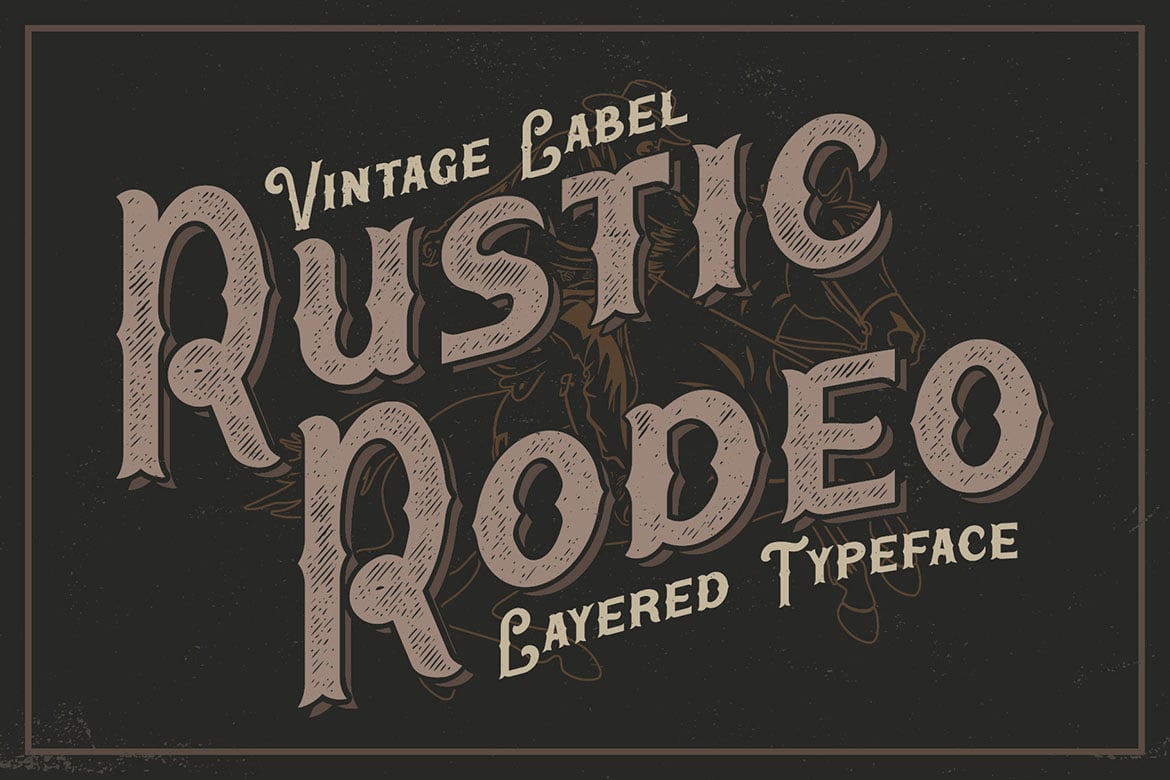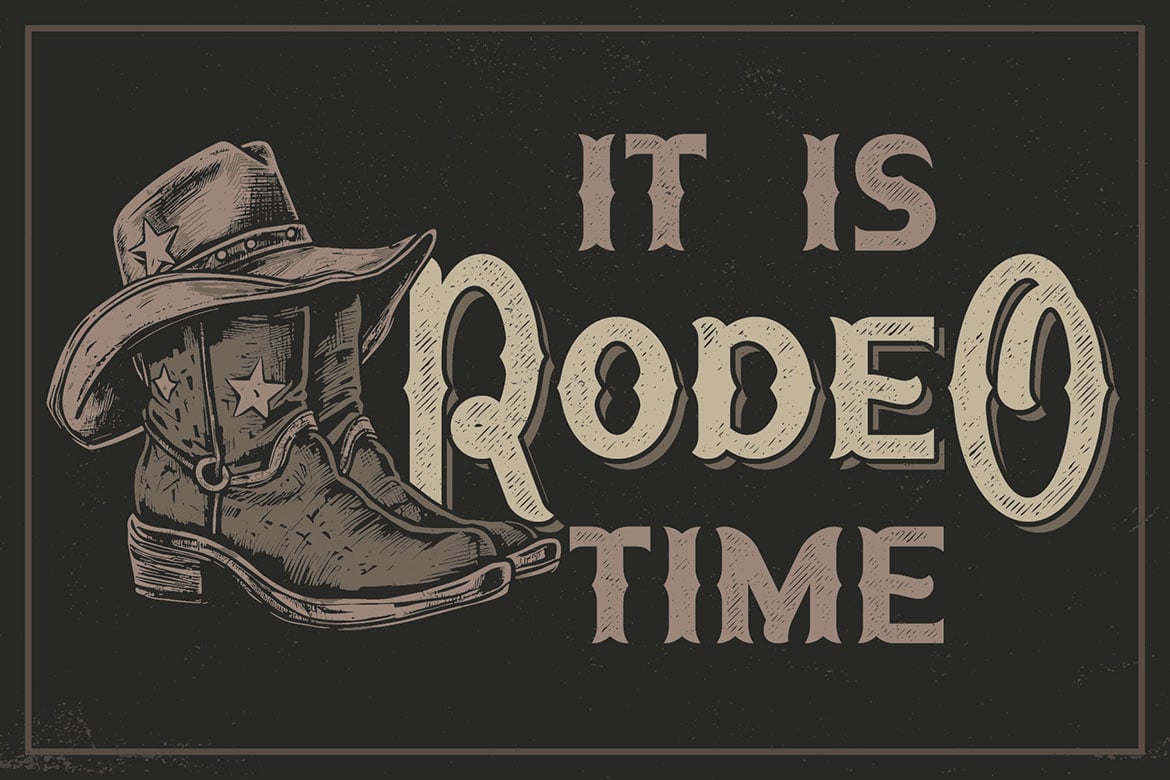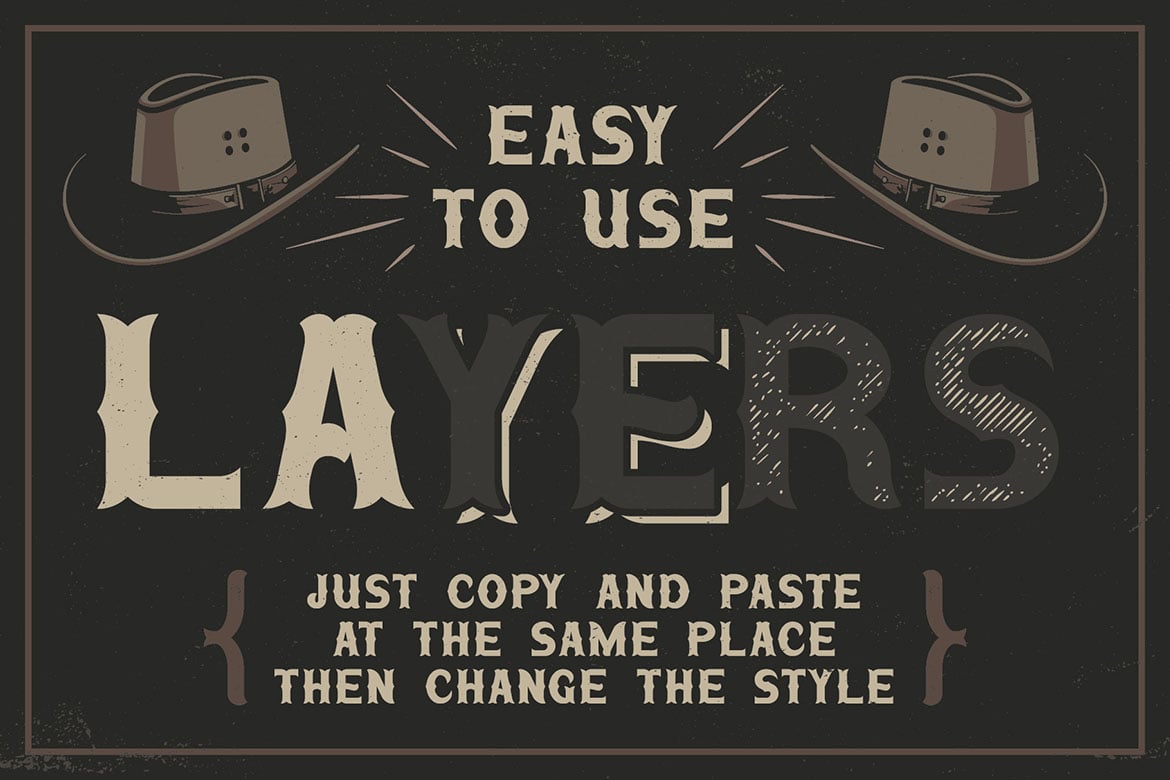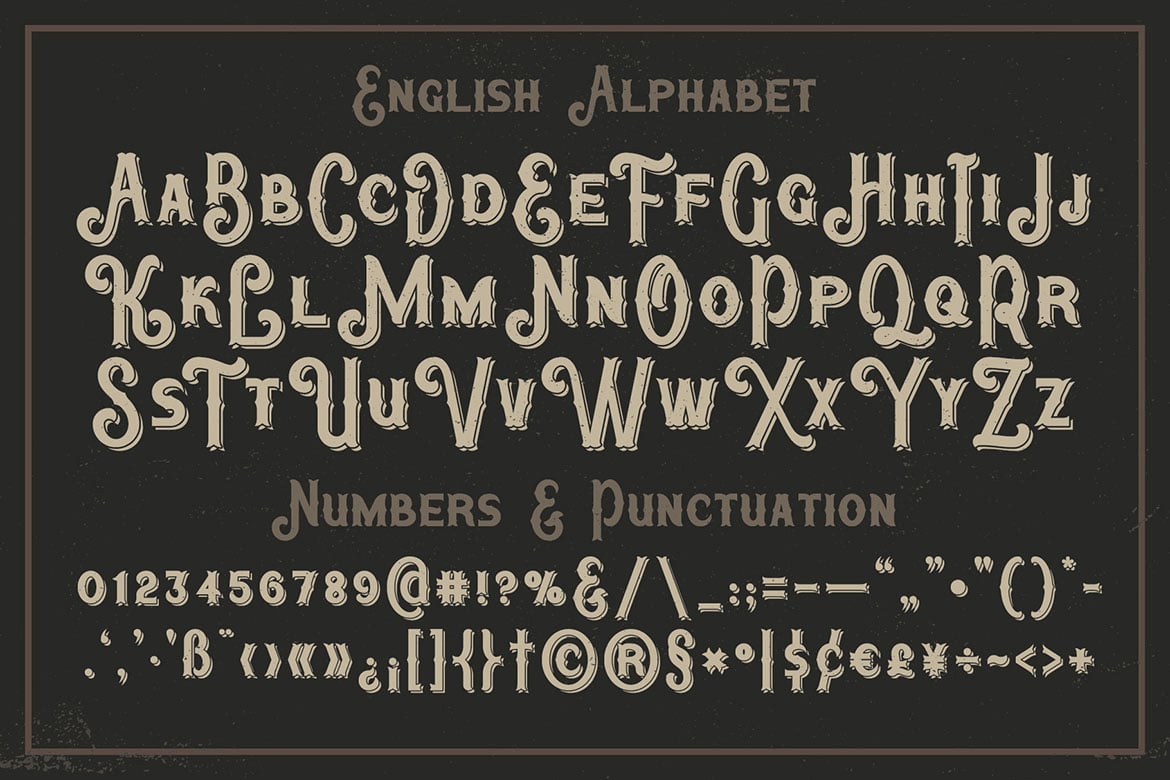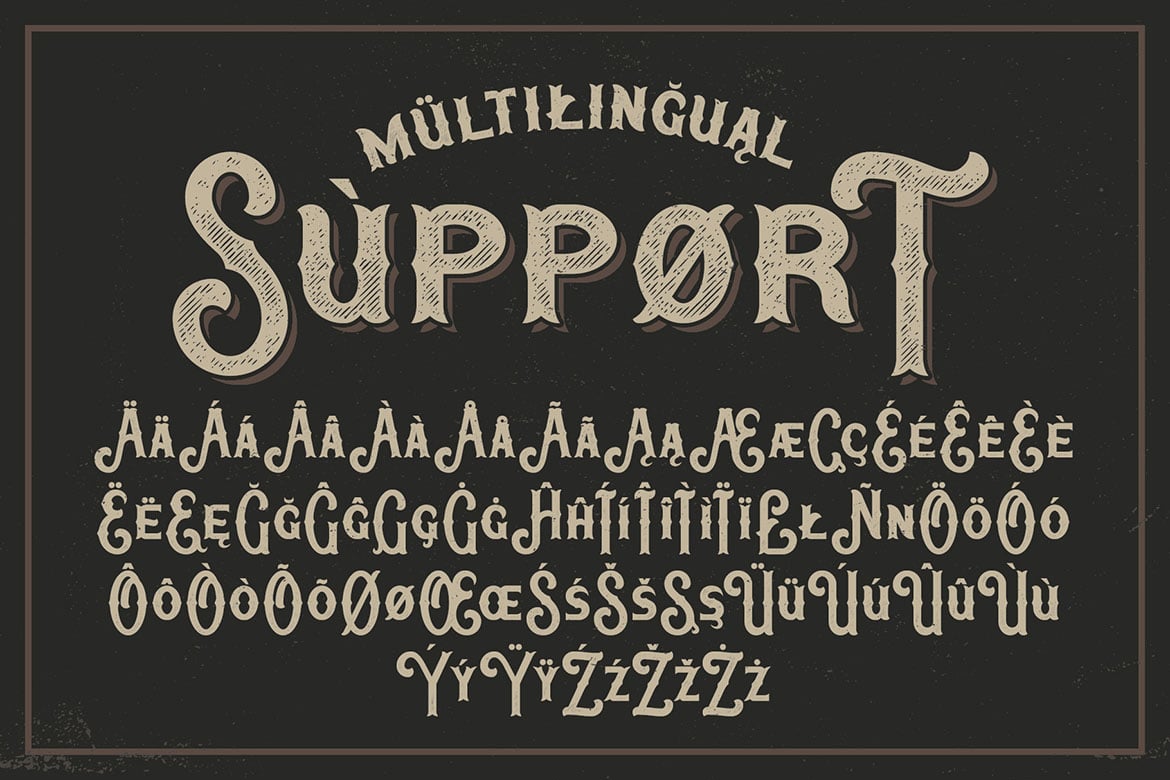
Rustic Rodeo Display Font
Unique, creative, vintage & decorative serif font. Comes with multilingual support & various font styles – great for your new logo or branding project.
- 6 font versions
- Great for retro or vintage style branding projects